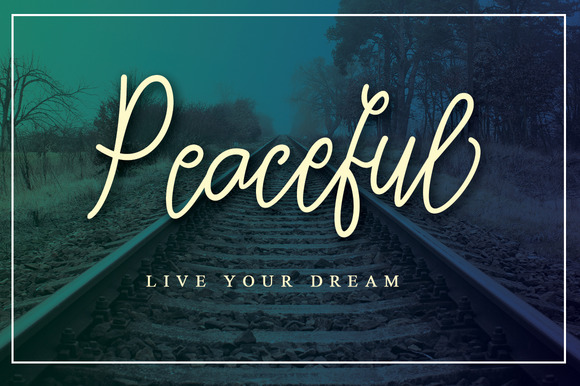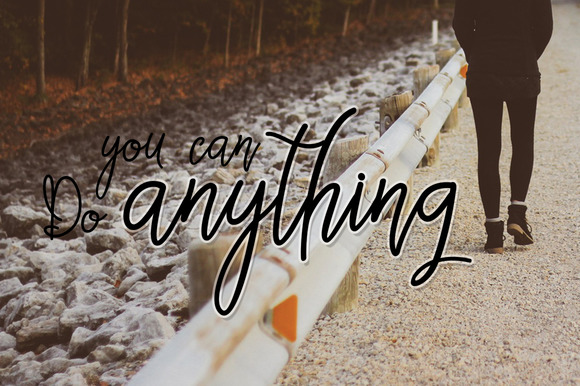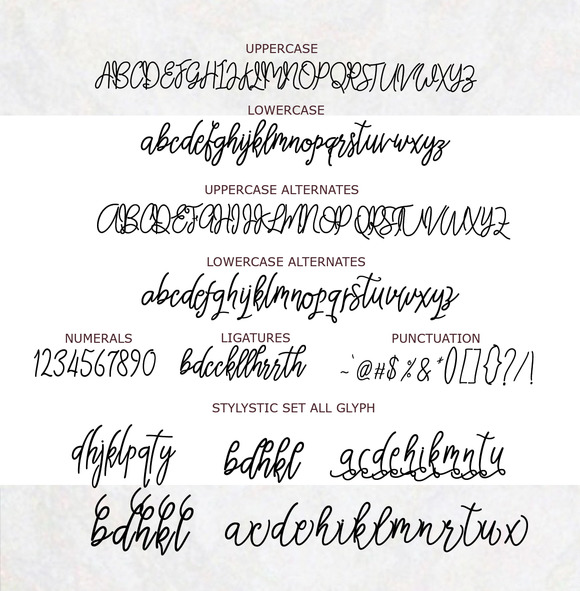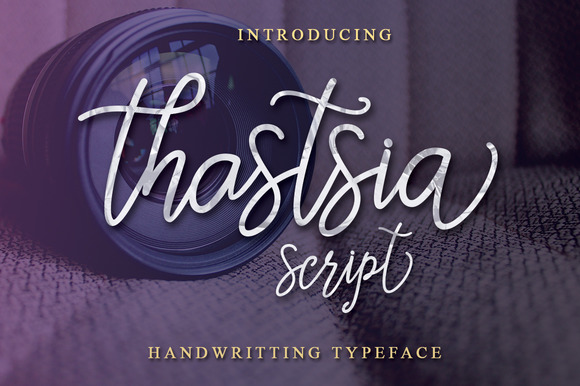
Thastsia
Thastsia Script Font
Introducing thastsia script, a script font with impression of monoline with extra features. With some of layout options, you can use together for typographic project of art with easy!
Very suitable for greeting cards, branding materials, business cards, quotes, posters, and more!This font are perfect for wedding postcard. Or you can create perfect and unique design of your logo, blog, stationery, marketing, magazines and more 🙂